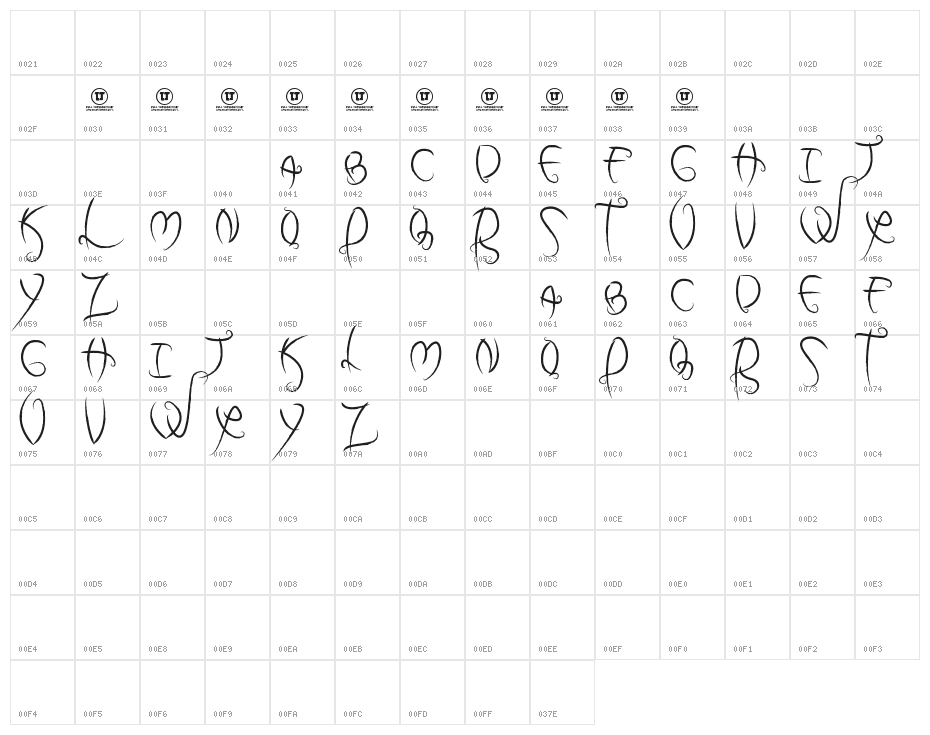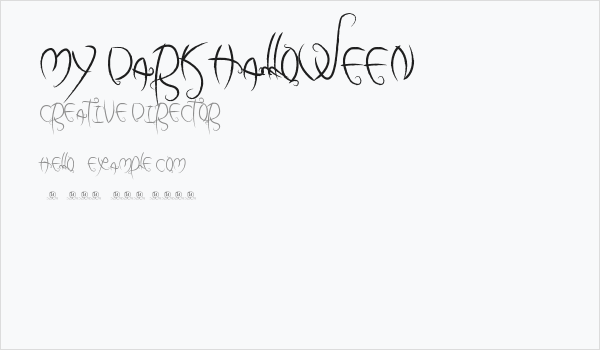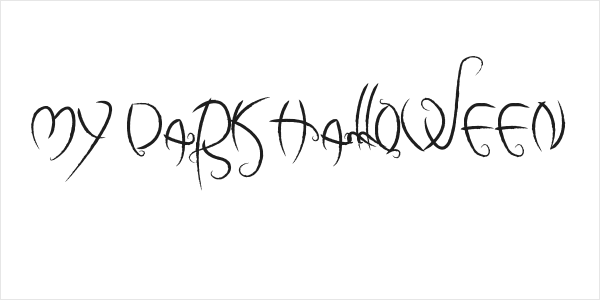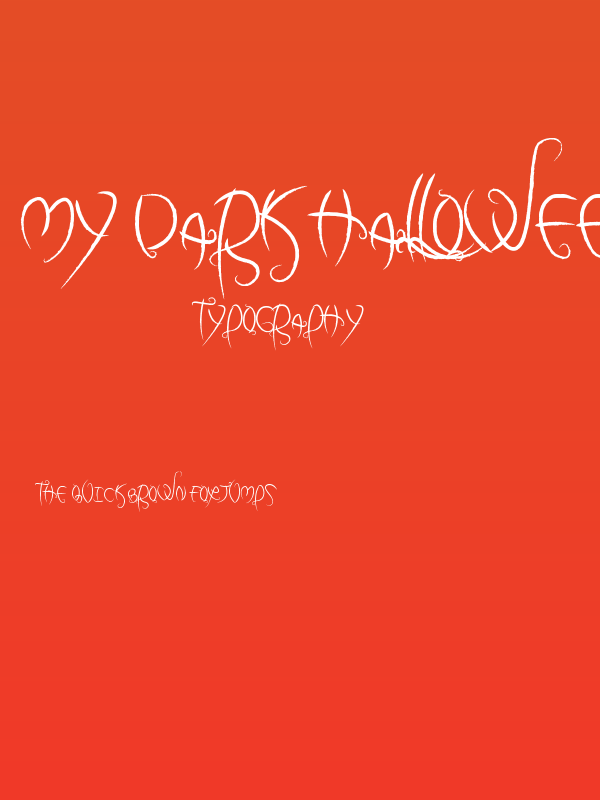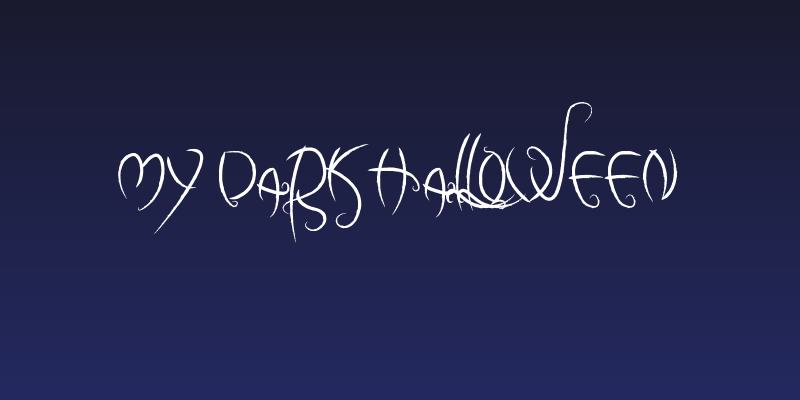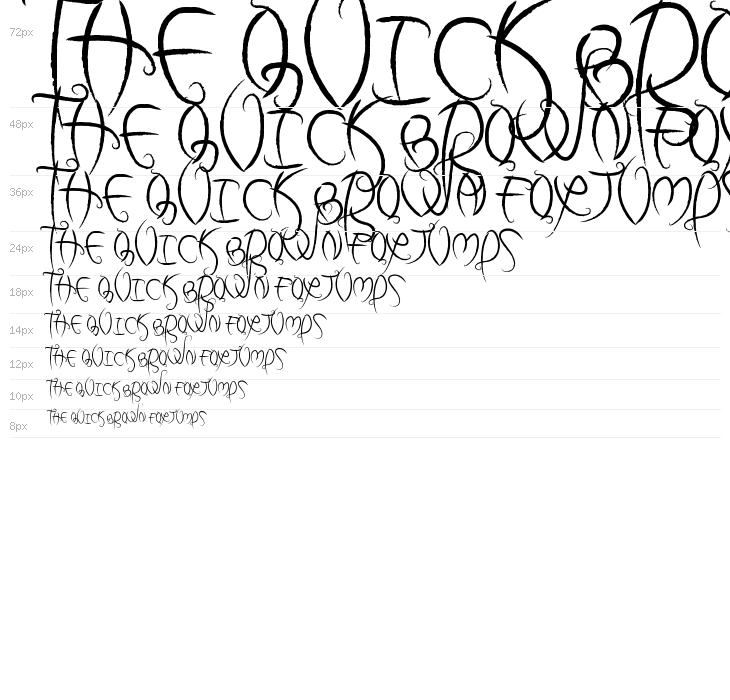
my dark halloween Font
my dark halloween Description
This font features a gothic and eerie style, perfect for creating a spooky atmosphere. The letters are adorned with sharp, elongated serifs and intricate curls, giving them a mysterious and dramatic appearance. The strokes are uneven, adding to the unsettling and haunted feel. The overall design is reminiscent of classic horror themes, making it ideal for Halloween-themed projects or anything requiring a dark, mystical touch. The unique character shapes ensure that each letter stands out, contributing to the font's distinct personality.
| Overall Style | Gothic, Eerie, Decorative |
| Use Case | Headlines, Posters, Themed Invitations |
| Proposed Projects | Ideal for Halloween invitations, horror movie posters, haunted house flyers, and gothic-themed graphic designs. |